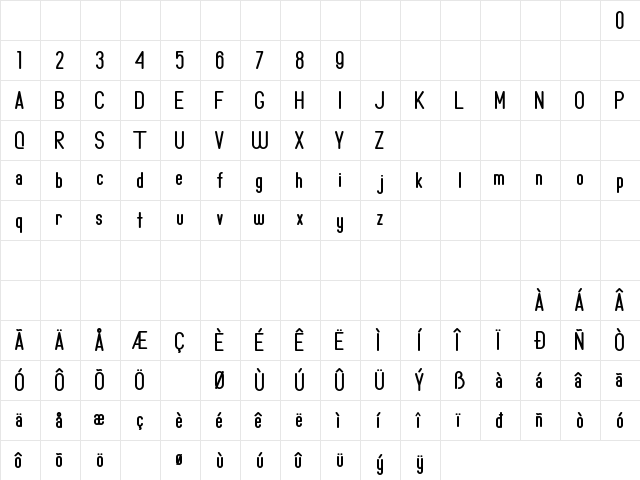
Milleniale Personal Use Only Regular Font Preview
Milleniale Personal Use Only Regular
Milleniale Personal Use Only Regular Font Details
Design Context for Milleniale Personal Use Only Typeface
Milleniale Personal Use Only offers clean, dependable letterforms without strong stylistic allegiance, making it a practical choice for designers who need flexibility.